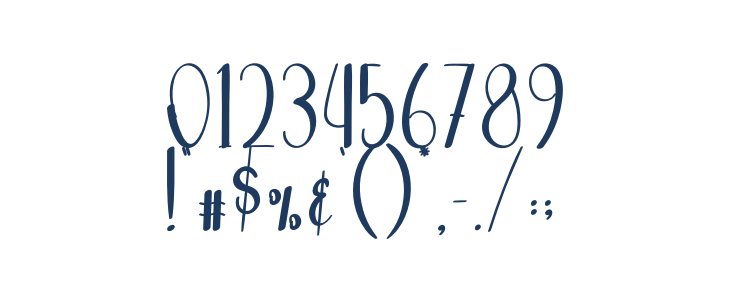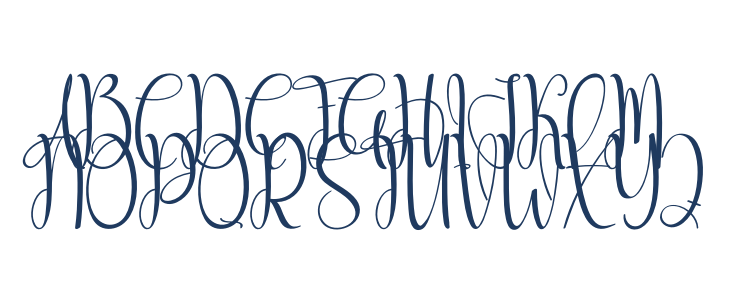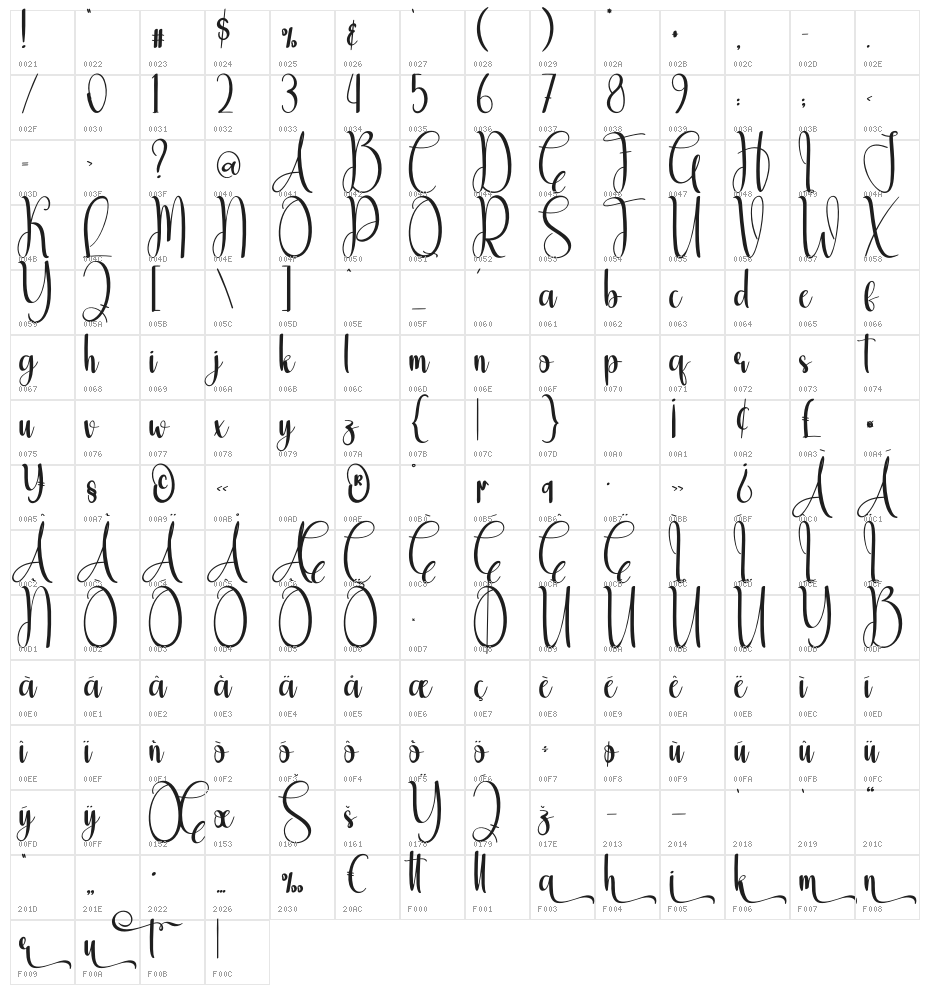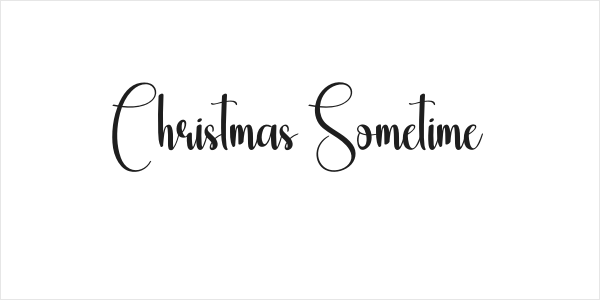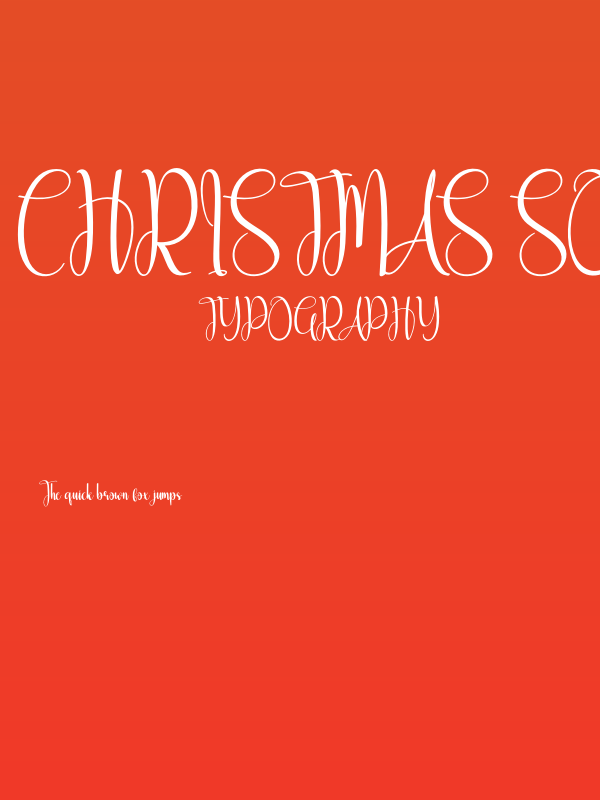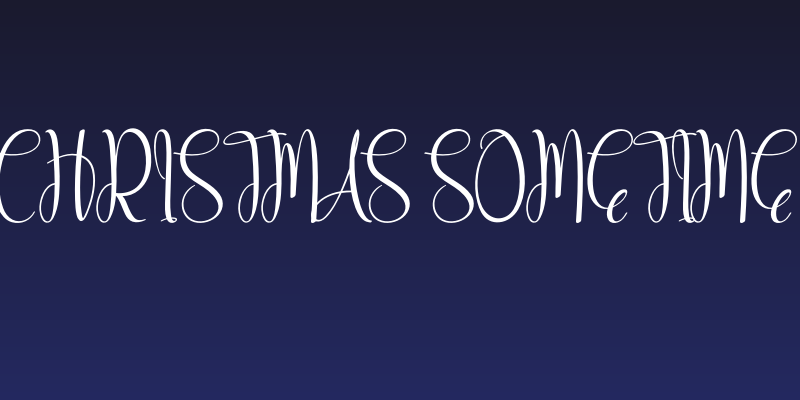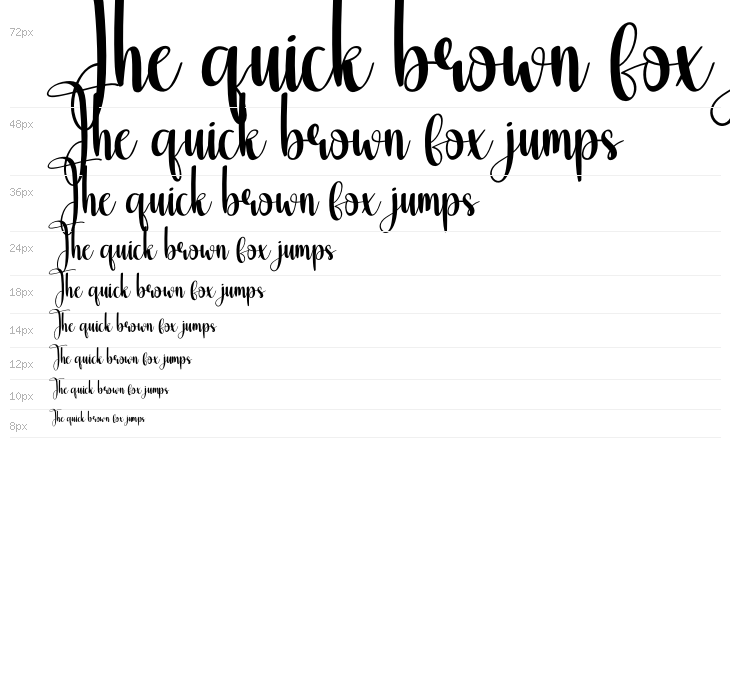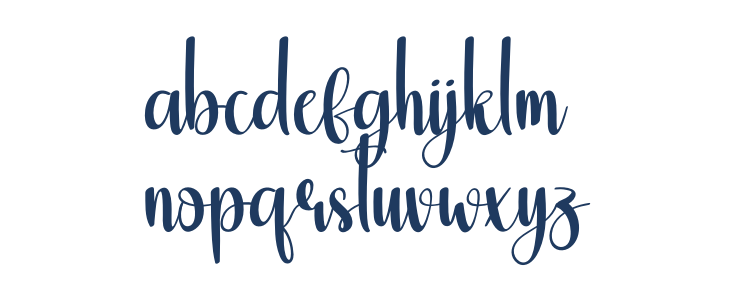
Christmas Sometime Font
Christmas Sometime Description
A whimsical, handwritten script font with tall, looping ascenders and descenders, featuring playful swashes and a mix of thick and thin strokes. The characters are highly decorative, with a festive and informal feel, and the numerals and symbols match the ornate style.
| Overall Style | Decorative, Festive, Whimsical |
| Use Case | Headlines, Invitations, Greeting cards, Decorative text |
| Proposed Projects | Holiday cards, invitations, festive branding, event posters, decorative signage. |